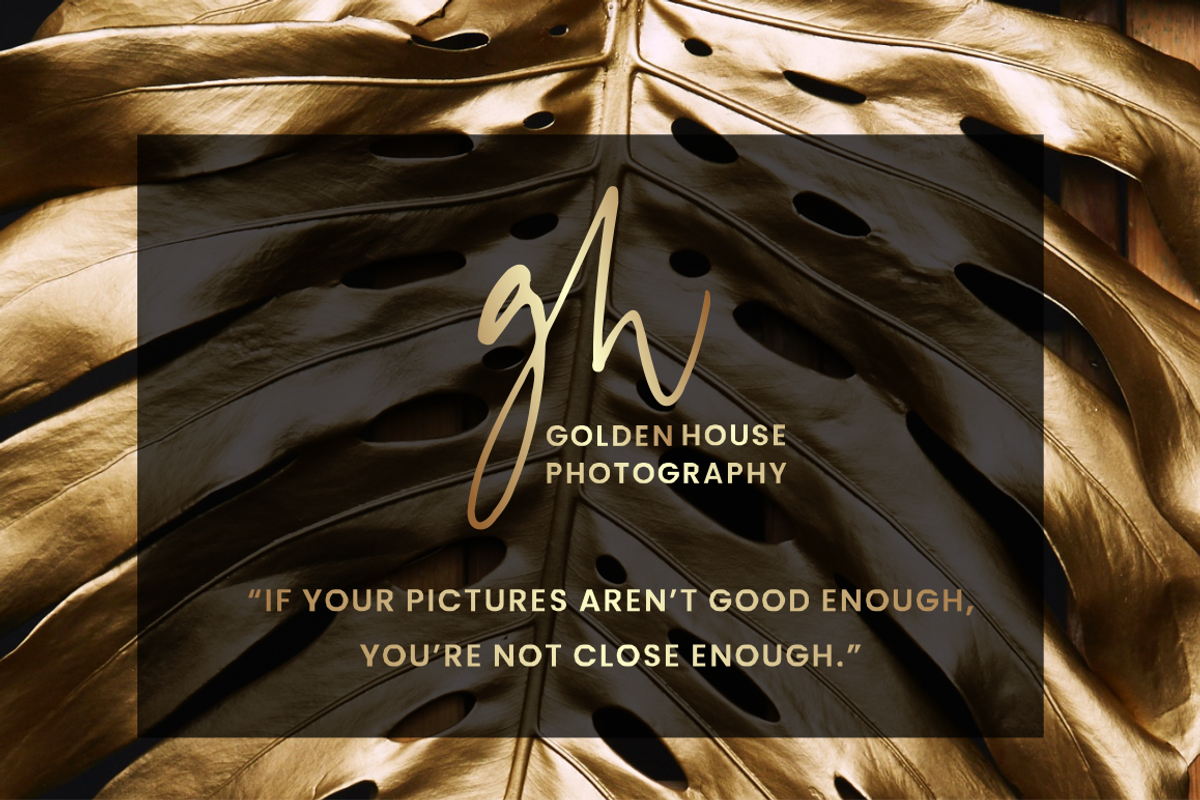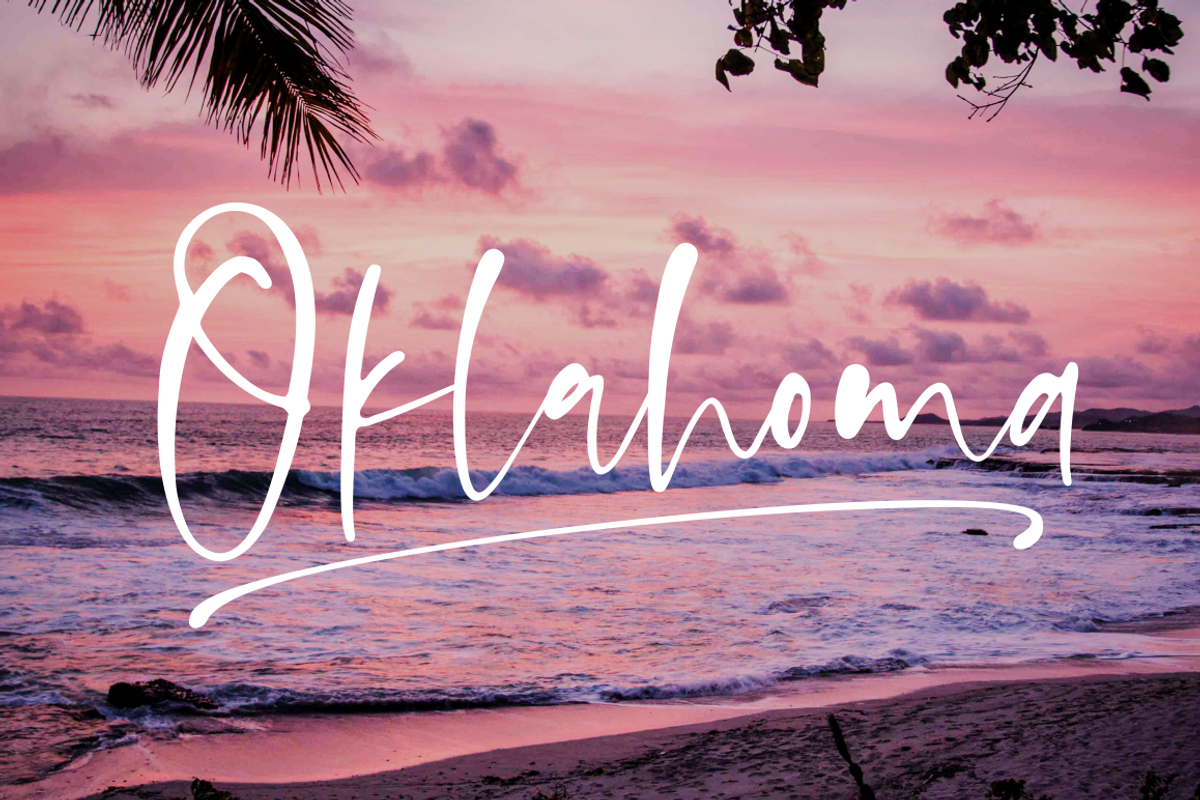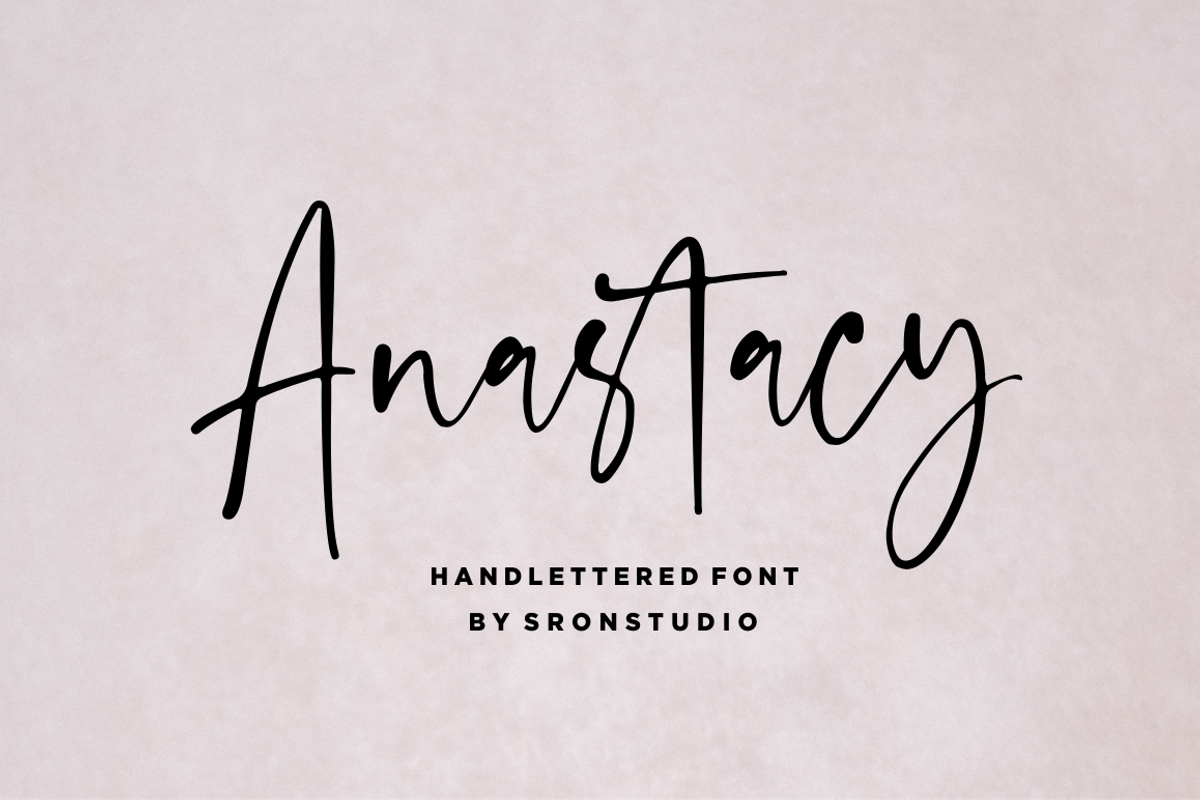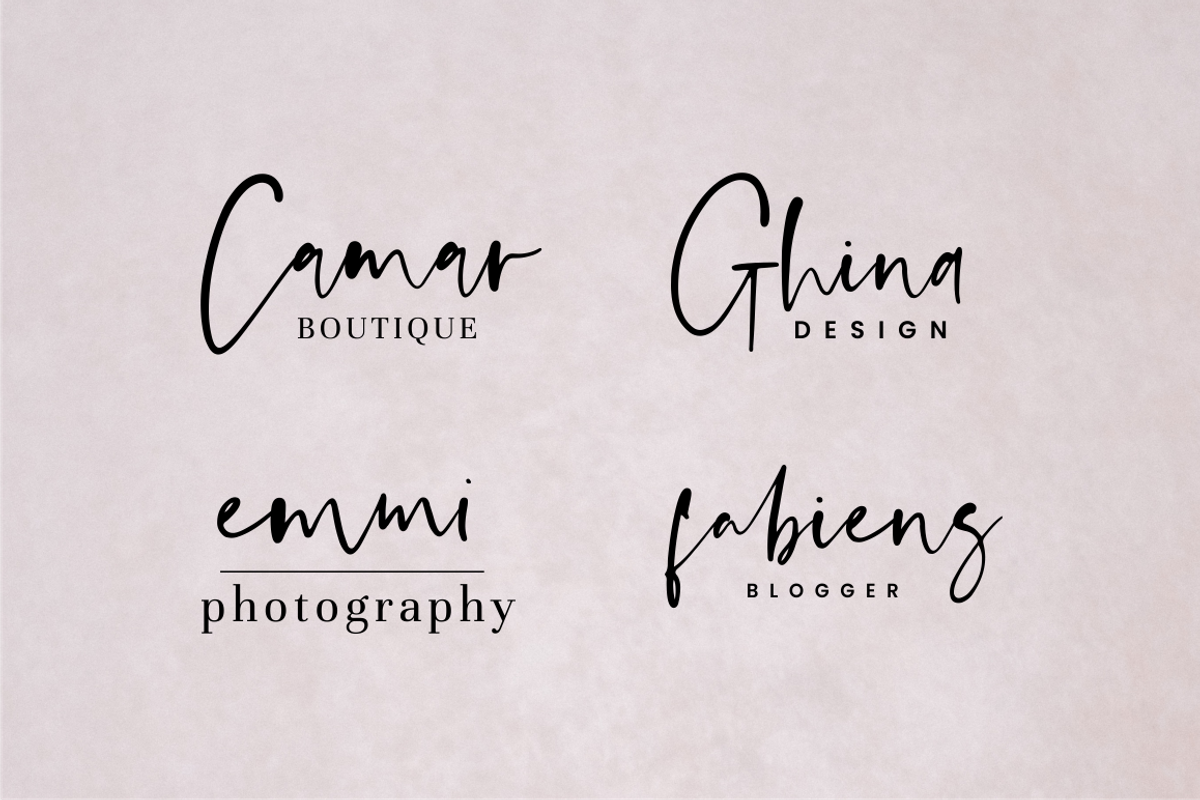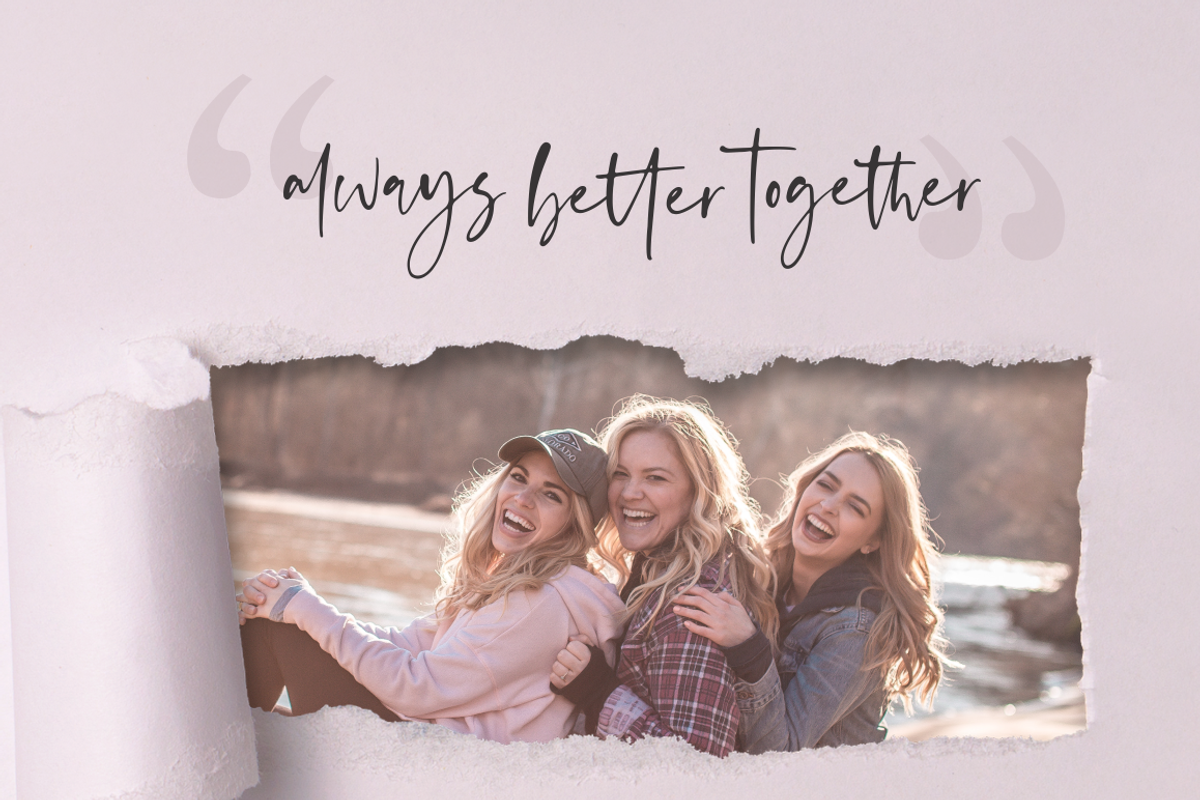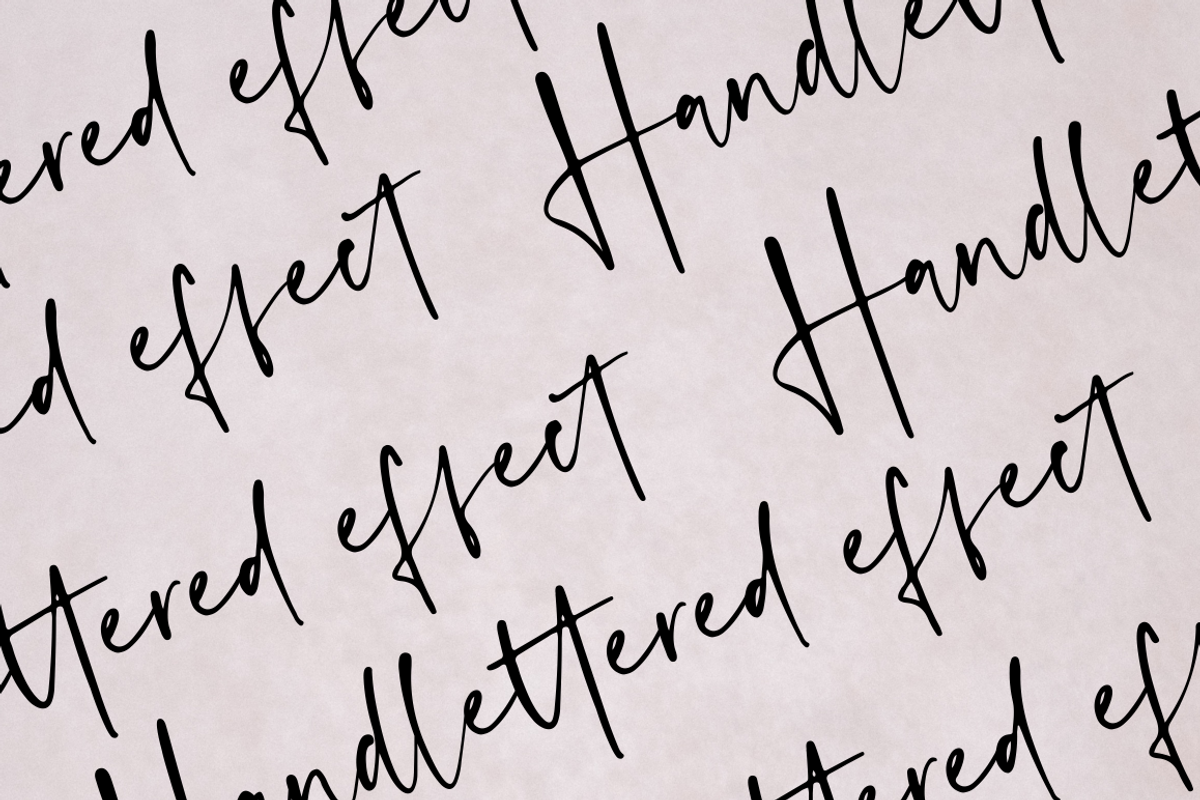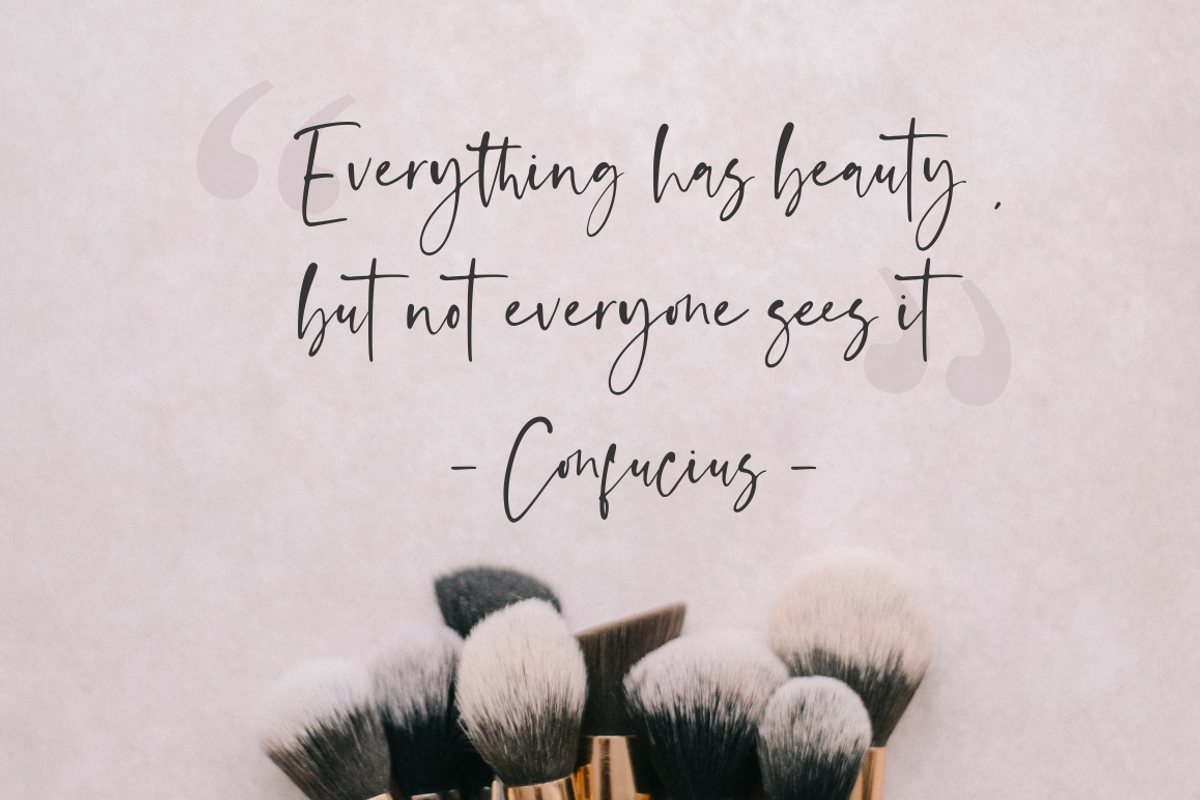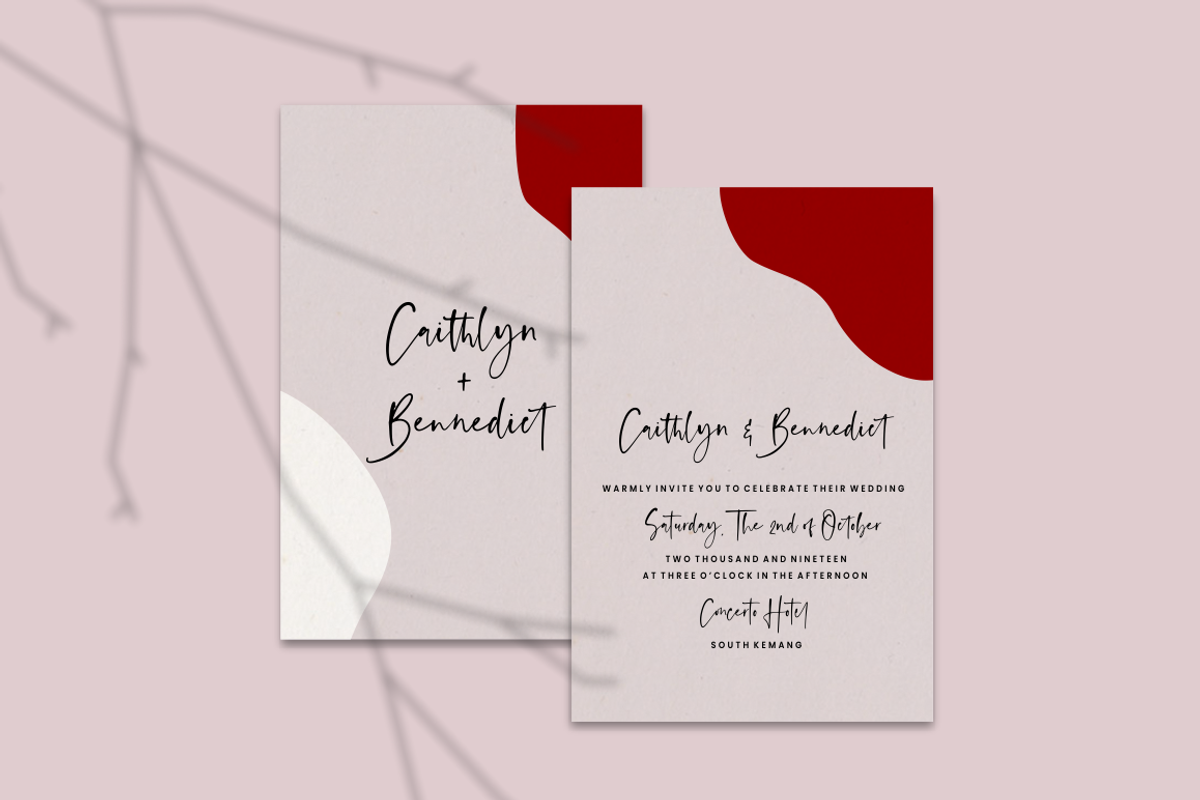
Anastacy - Handlettered Font
Anastacy is a natural handwritten font, this font Is perfect for logo, invitation, stationery, wedding designs, social media posts, advertisements, product packaging, product designs, label, photography, watermark, special events or anything.
- Anastacy comes with full set of uppercase and lowercase letters, Contextual alternates , multilingual symbols, numerals, punctuation.
Anastacy - Handlettered Font by Sronstudio fits naturally into Branding, posters, packaging, typography.